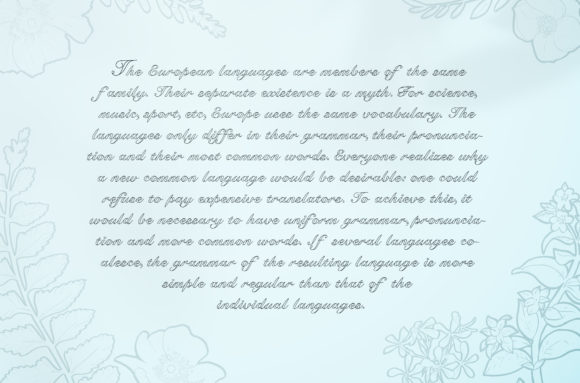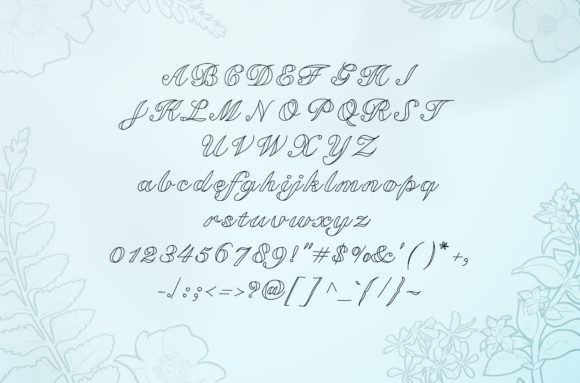
Introduction to Kawka Font
Have you ever stared at a blank page, wondering how to bring your creative vision to life? The blank page stare is a familiar foe for many designers, but it’s moments like these that make us search for the perfect design resource. For me, that moment came when I stumbled upon the beautiful Kawka Font.
The Kawka Font is a stunning example of a handwritten font that exudes elegance and sophistication. Its flowing lines and soft curves make it perfect for both formal and non-formal events, from wedding invitations to greeting cards and logos. With its high-quality design and transparent background, this font is a valuable addition to any designer’s toolkit.
Key Features of Kawka Font
- Unique, hand-drawn design with a transparent background, perfect for creative projects.
- Available in 5 different sizes, ranging from 12pt to 72pt, allowing for flexible use in various design contexts.
- Perfect for use in creative projects, such as graphic design, branding, and typography-based art.
Honest Review: Kawka Font
I recently had the chance to work with the Kawka Font, and I must say it’s been a game-changer for my design projects. This font is perfect for anyone looking for a high-quality, free download to elevate their creative project.
Here are some of the things I love about the Kawka Font:
- ✨ The transparent background option allows for seamless integration into any design, giving me endless possibilities for customization.
- ✨ The font itself is clean and modern, making it perfect for a wide range of design applications.
However, there are a few limitations I’ve encountered:
- ⚠️ The font may not be suitable for projects requiring extreme font customization, as it’s more geared towards standard design applications.
- ⚠️ The transparent background option can sometimes be a bit glitchy, requiring a bit of tweaking to get it just right.
Overall, I’m thoroughly impressed with the Kawka Font. It’s a fantastic design resource that’s perfect for anyone looking to add a touch of professionalism to their creative project. I highly recommend giving it a try and seeing how it can elevate your designs.
Kawka Font
Tips for Getting the Most Out of Kawka Font
For optimal results, use the Kawka Font in conjunction with other high-quality design elements. Experiment with different font sizes, colors, and styles to create unique and visually appealing designs.
The Kawka Font is commonly used in creative projects such as logos, brochures, and social media graphics. Its unique design makes it perfect for creating eye-catching and professional-looking designs.